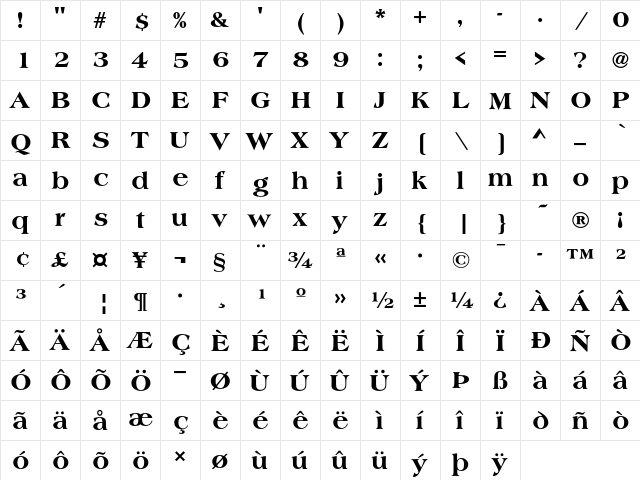
Americana T Extra Bold
Design Context for Americana T Typeface
Americana T offers clean, dependable letterforms without strong stylistic allegiance, making it a practical choice for designers who need flexibility. The heavy weight commands attention and anchors typographic hierarchies.
Pro Tip: Pair Americana T with a font of contrasting weight or personality to build a more expressive typographic hierarchy.